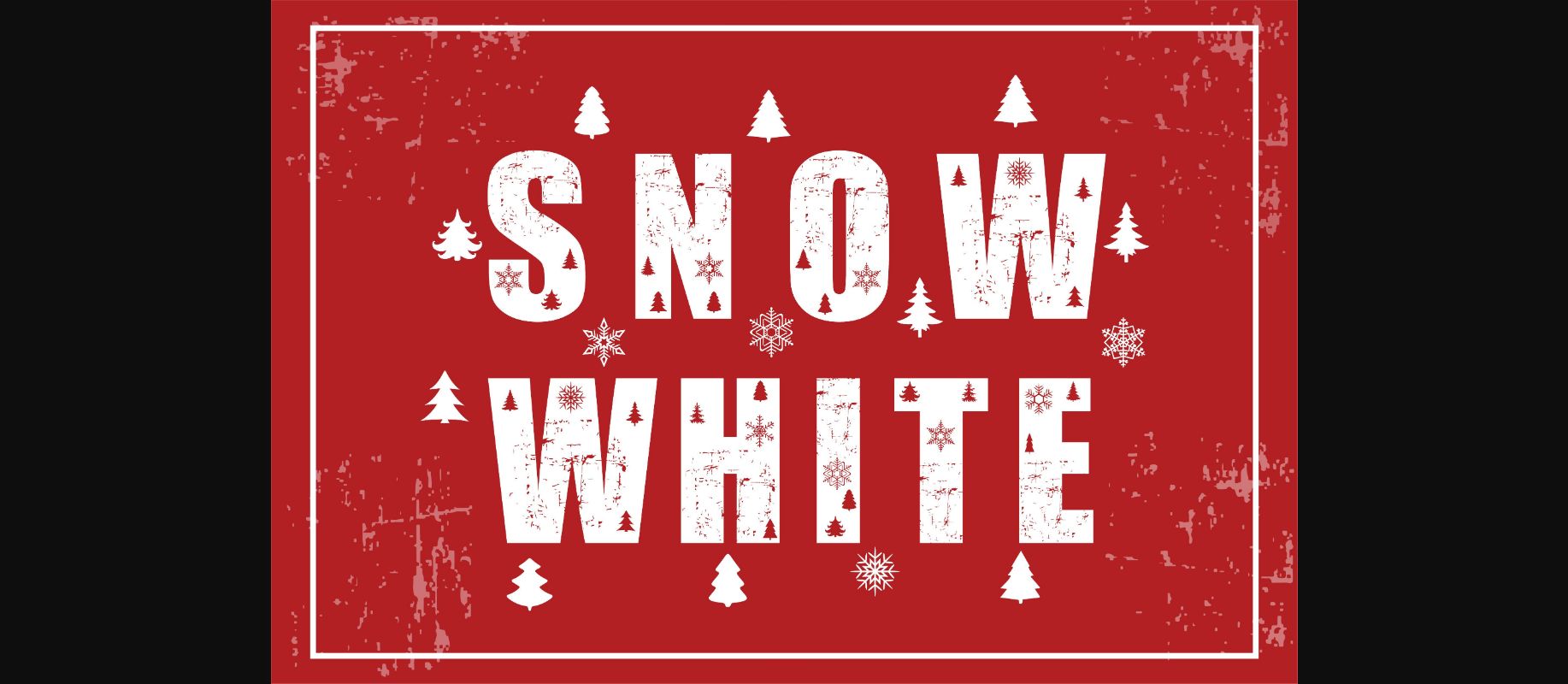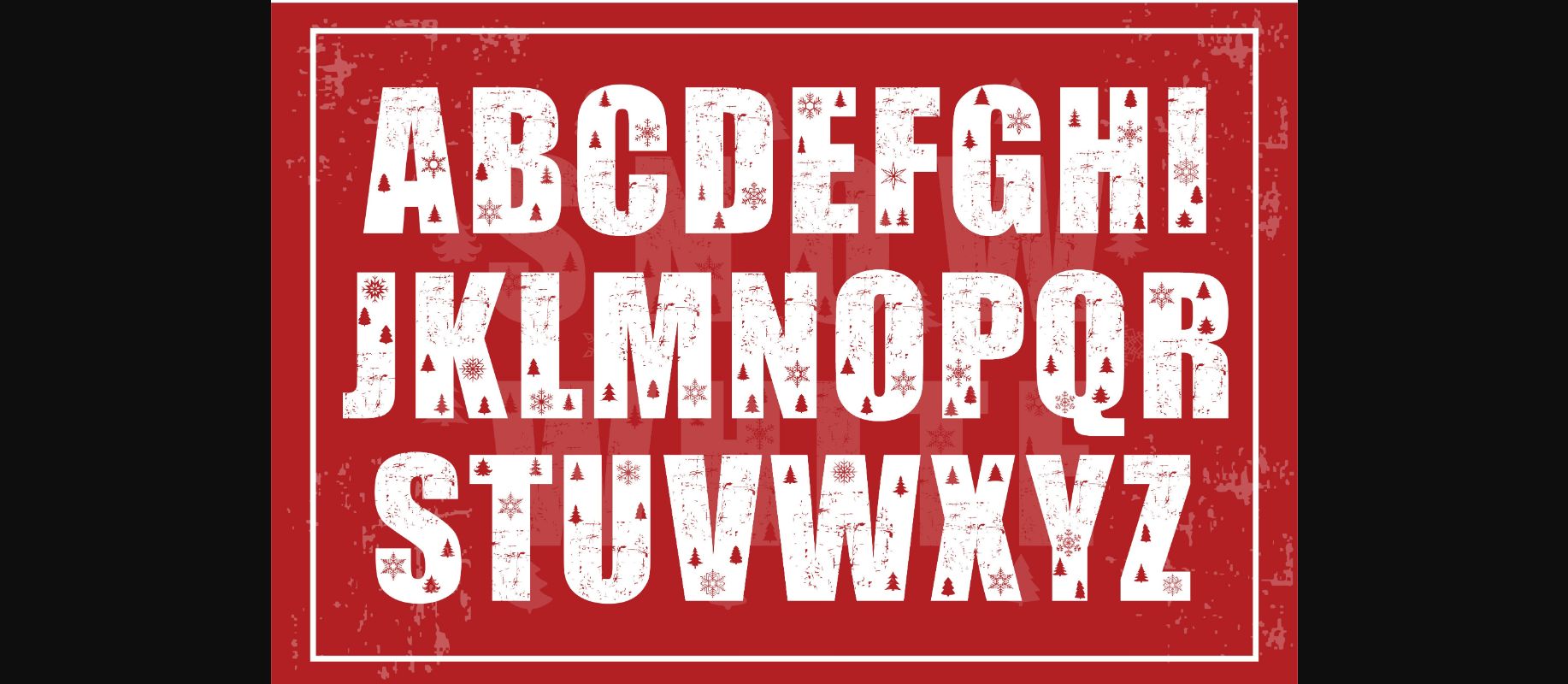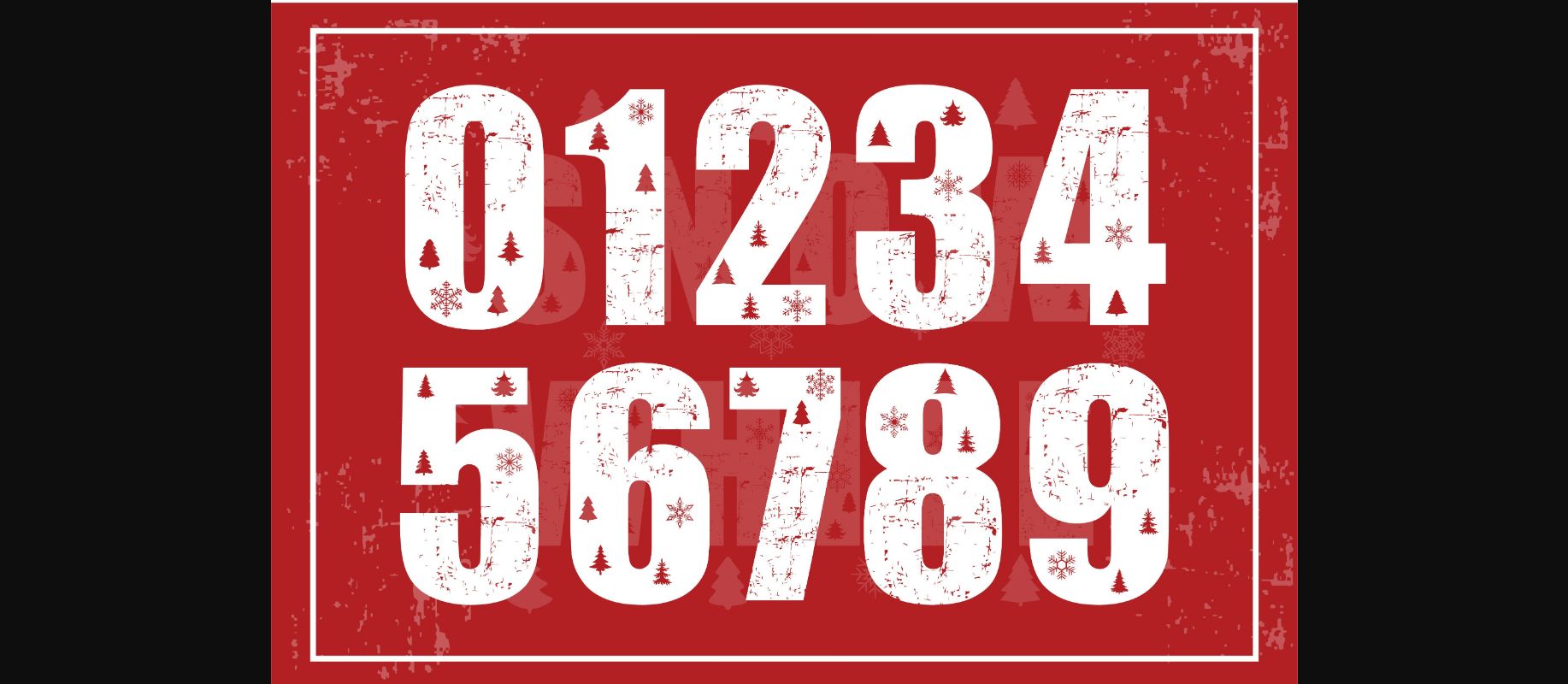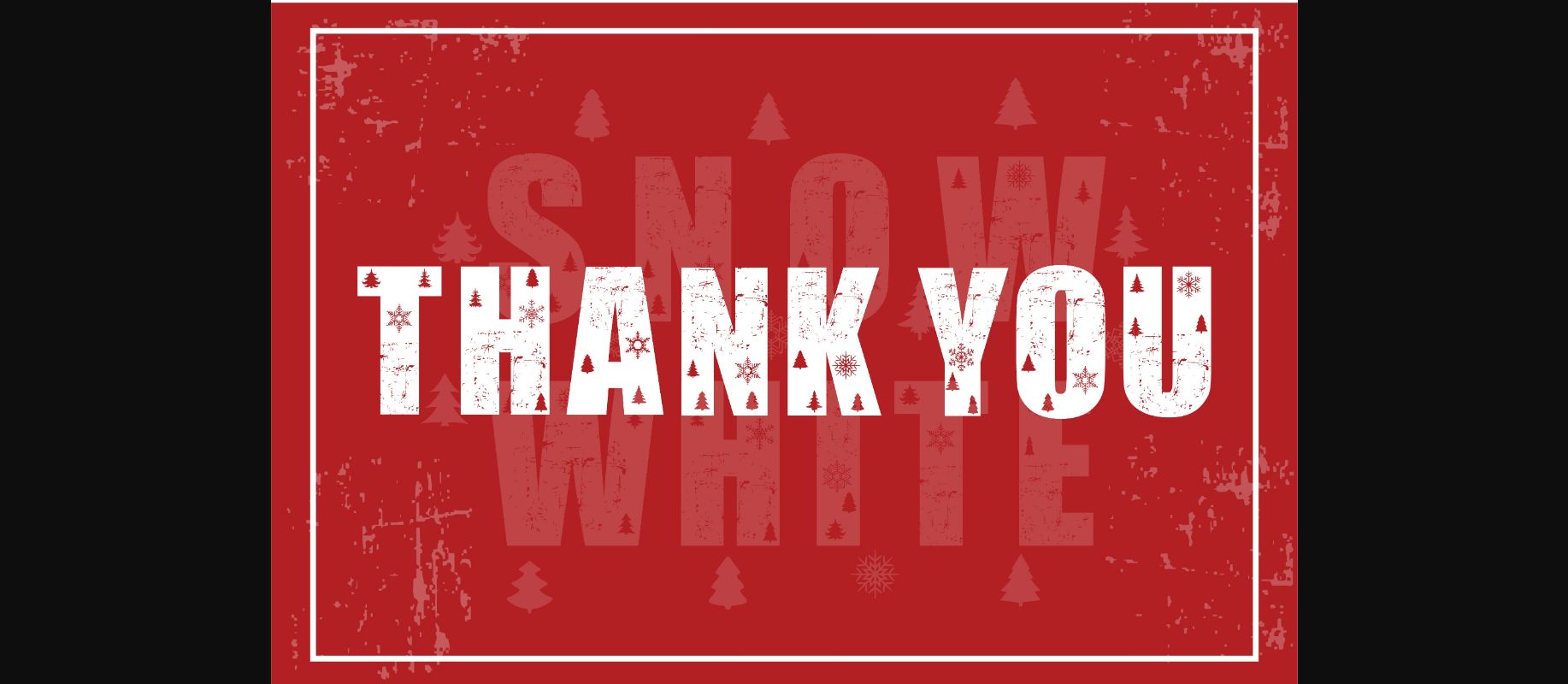
HomeDecorative FontsSnow White Font Decorative Fonts Snow White Font FacebookXPinterestWhatsApp 1 of 6 ... Snow White Font Poster 2... Snow White Font Poster 3... Snow White Font Poster 4... Snow White Font Poster 5... Snow White Font Poster 6... About Snow White Font Snow White is a thick-lettered and festive decorative font suitable for all your winter or Christmas-themed projects! Its authentic look will add a personal and realistic feel to your designs. DOWNLOAD NOW People also explored Fadli Script Font Gulliver Font Maria Font Rose Blossom Monogram Font Adden Font Sunlight Font Karpes Clory Font Lucritia Font Commodo Font 305 0 TagsSnow White Font Previous articleScary Bat FontNext articleCrayonz Font LEAVE A REPLY Cancel reply Comment: Please enter your comment! Name:* Please enter your name here Email:* You have entered an incorrect email address! Please enter your email address here Website: Save my name, email, and website in this browser for the next time I comment. Personal Use Free Lovetle Personal Use Free Read more about this font Ashay Personal Use Free Read more about this font Eits Personal Use Free Read more about this font Hashira Mt Personal Use Free Read more about this font BLOG How to Cut Any Font on Cricut: Convert a Font to SVG (Free) Turn any font into a clean SVG so it cuts crisp on Cricut - a quick 3-step workflow using a free font-to-SVG tool. Using Fonts in Digital Marketing: Tips to Strengthen Your Brand Identity Fonts That Capture the Spirit of New York City Where to Buy American Fonts Online in 2024